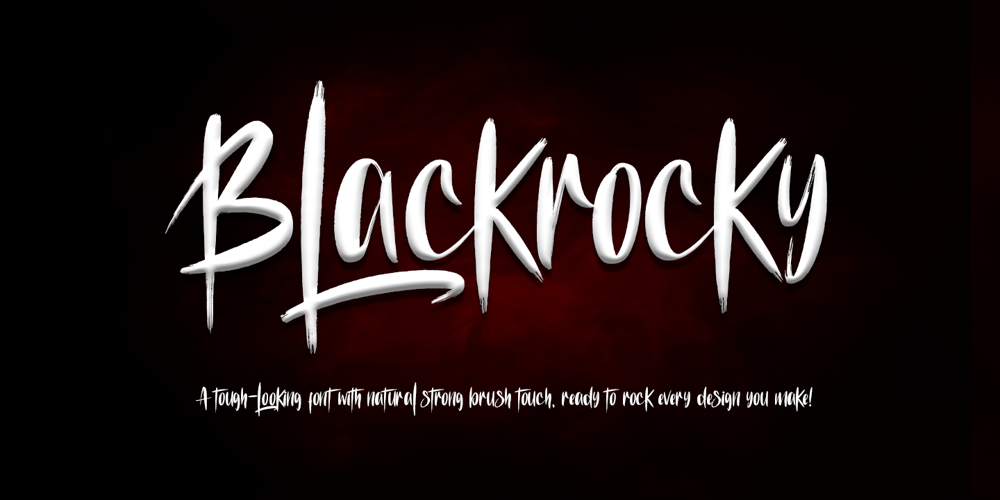
Blackrocky
Blackrocky font
Blackrocky Font Family was designed by Thomas Aradea and published by Letterara. Blackrocky contains 2 styles and family package options. Blackrocky is a natural dry brush font. a tough-looking font with natural strong brush touch ready to rock every design you make. this font has a striking look and a good flow font that can add a stylish to your designs. It’s perfect for logos, quotes, posters, packaging, movie title, youtube banner, clothing, and every other design which needs a strong touch. It is PUA encoded which means you can access all of the glyphs with ease! Add it confidently to your projects, and you will love the results.